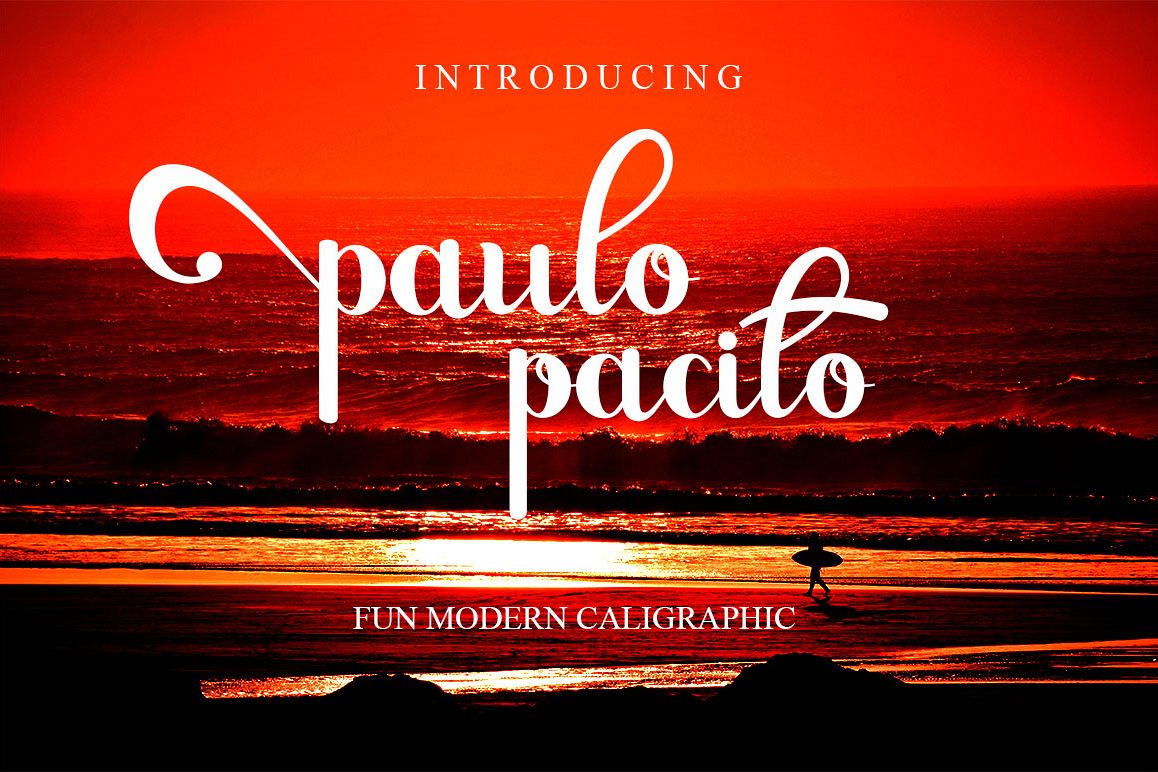
Paulo Pacito
Paulo Pacito is New Calligraphic fresh and fun taste based on handwritten type.
Paulo Pacito available in two styles of the type :
- Regular Script
- Italic Script
With complete of punctuation, numeric and ascend include in this case.
Contain of Stylistic Alternate and Ligature for the more beautiful types of Logos, business cards, posters, book cover, store's brand and many other of your requirement.